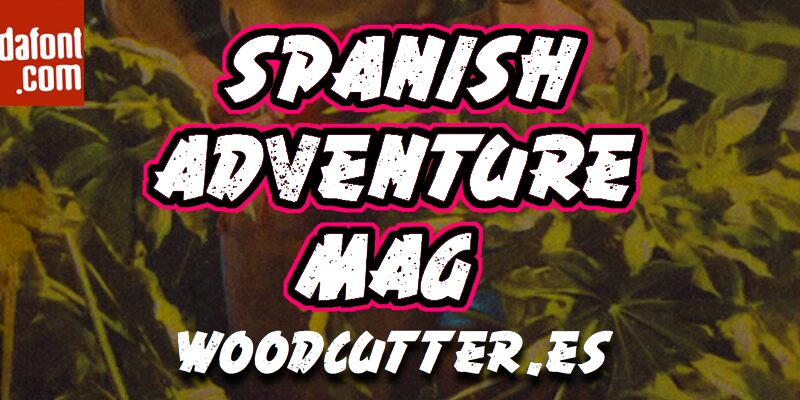
Spanish Adventure Mag font by Woodcutter is a bold and adventurous brush font that evokes exploration and excitement in its viewers. Free for personal use, it brings a casual vibe with rugged textures. With an energetic appearance, it will highlight any text by adding youthful positivity to it. The letter style is bold with a modern casual feel.
The Spanish Adventure Mag font is created with outdoor branding design in mind. It suits even action-oriented graphics and product packaging. Use it for various sports-themed advertisements, branding logos, web projects, posters, magazine cover titles, pins, labels, tags, invitations, or book covers.